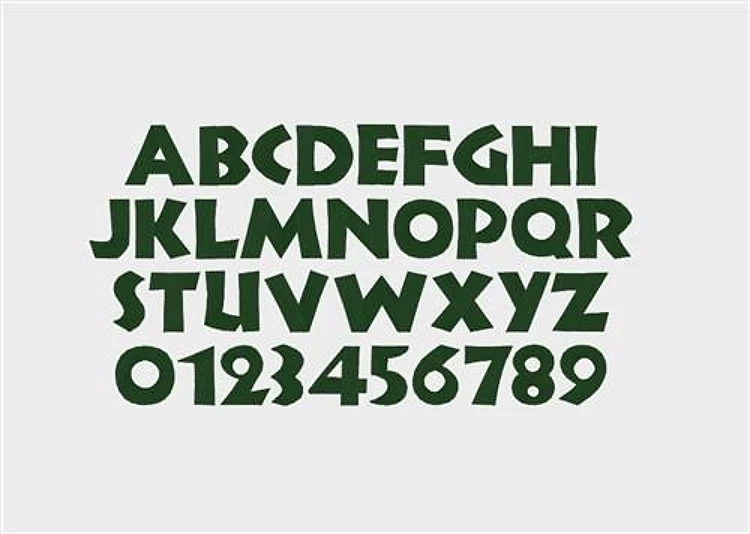
Bored fjord Embroidery Font - Bold Geometric Block Letters - Home Format - PES, DST & 6 formats by Artsy Knots and other embroidery fonts available at EmbroideryDesigns.com.
Artsy Knots is happy to present Bored fjord Embroidery Font - Bold Geometric Block Letters - Home Format - PES, DST & 6 formats machine embroidery font which has Bold block letters in dark green make this machine embroidery font ideal for creative projects on jackets or tote bags. Available in PES, DST and 6 other formats. included. If you would like to view more embroidery fonts and alphabets please search our embroidery fonts page.